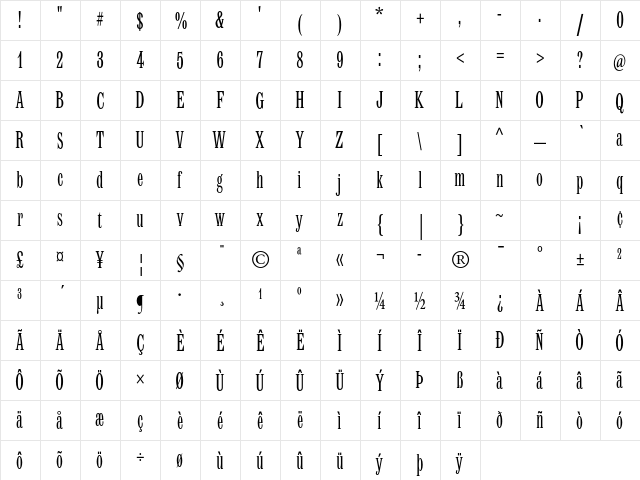
Latin MT Std Condensed
Design Context for Latin MT Std Typeface
Latin MT Std takes a measured approach to typography — its balanced proportions and neutral character make it a reliable workhorse for both digital and print work. The condensed width makes it efficient for tight spaces without sacrificing legibility.